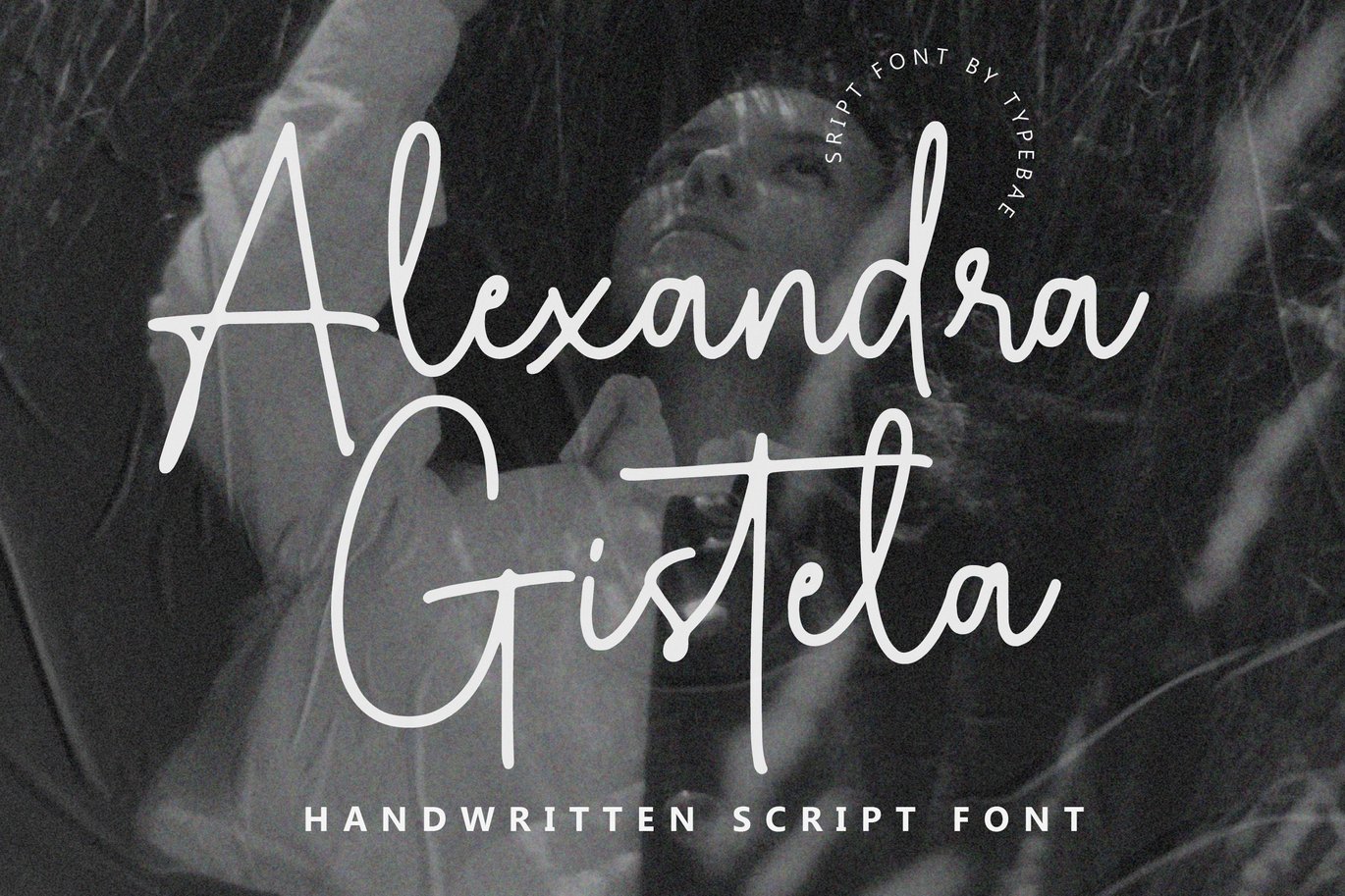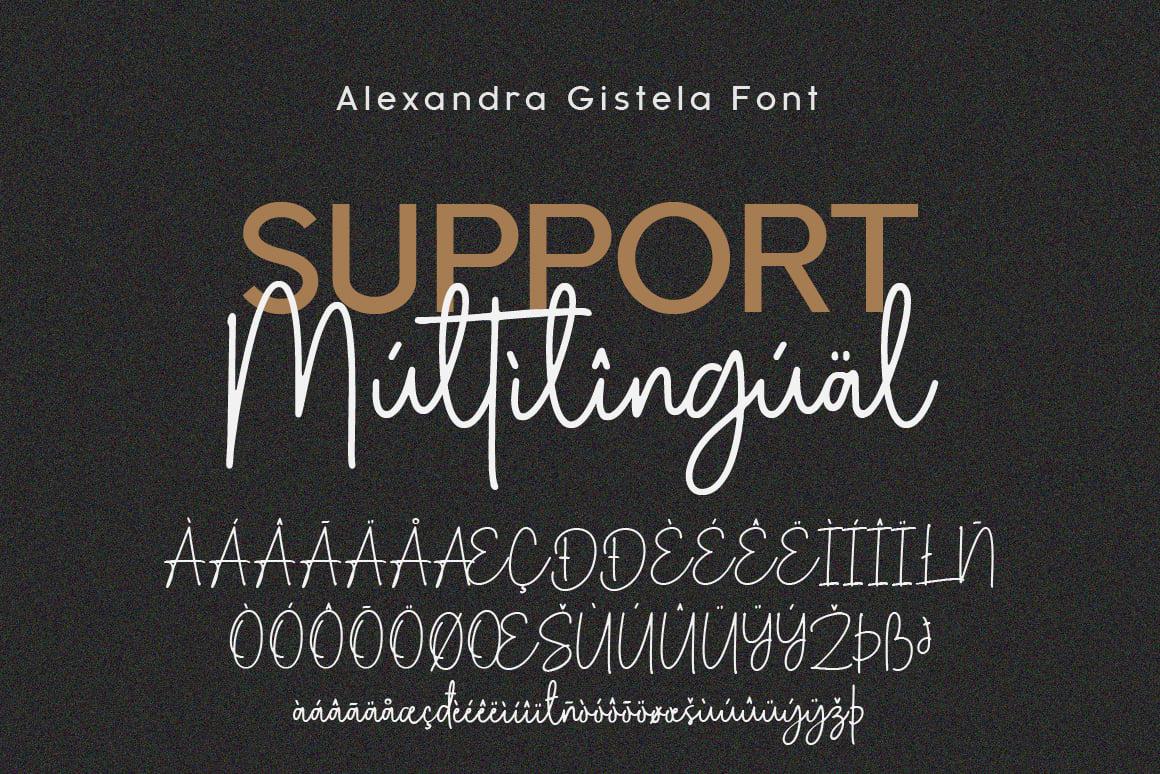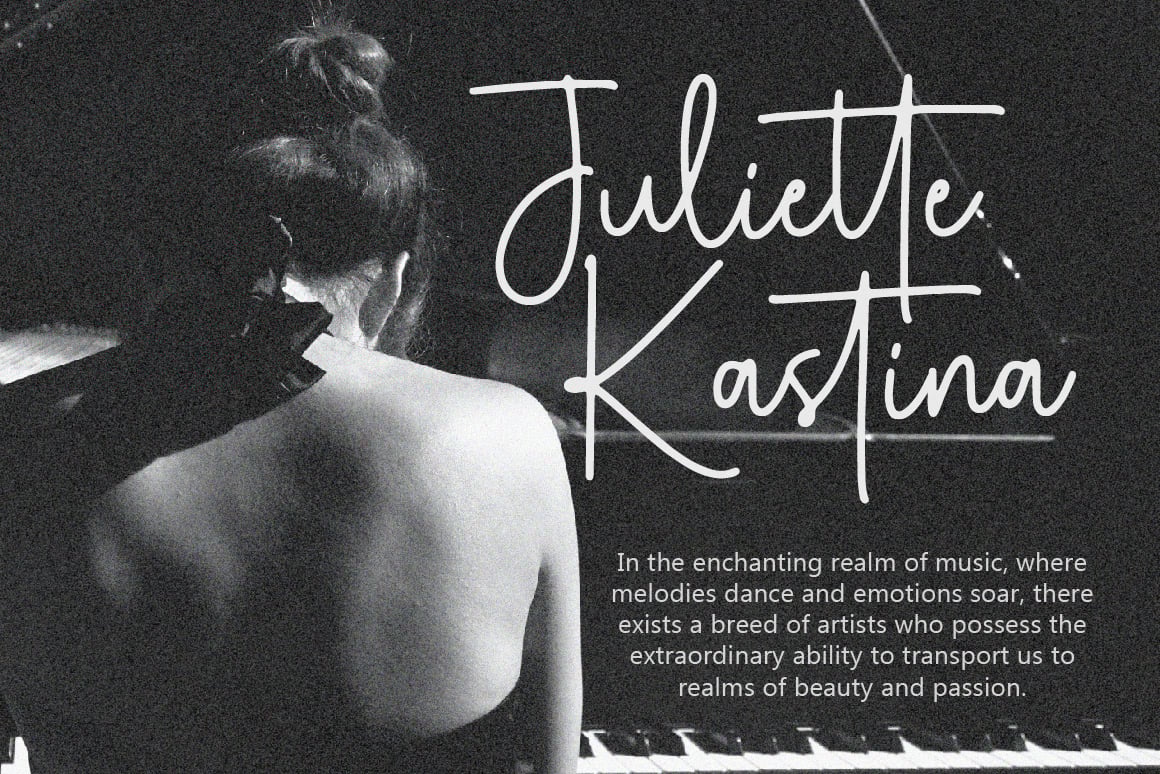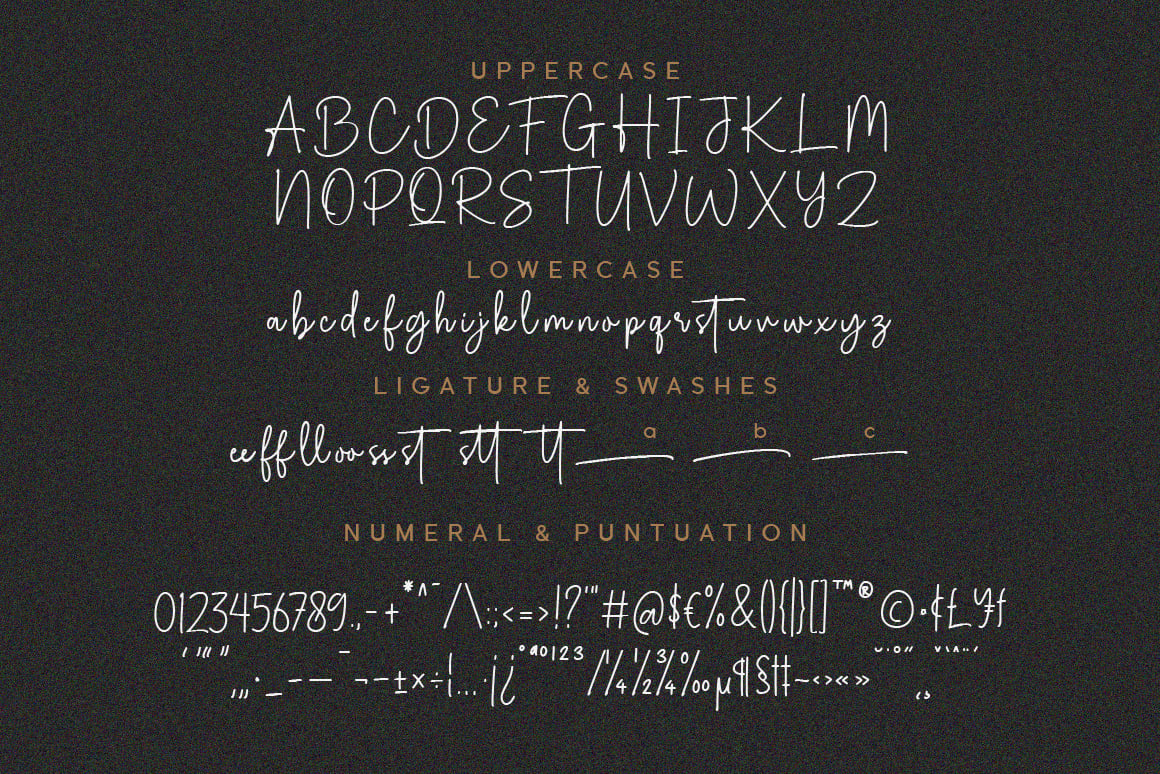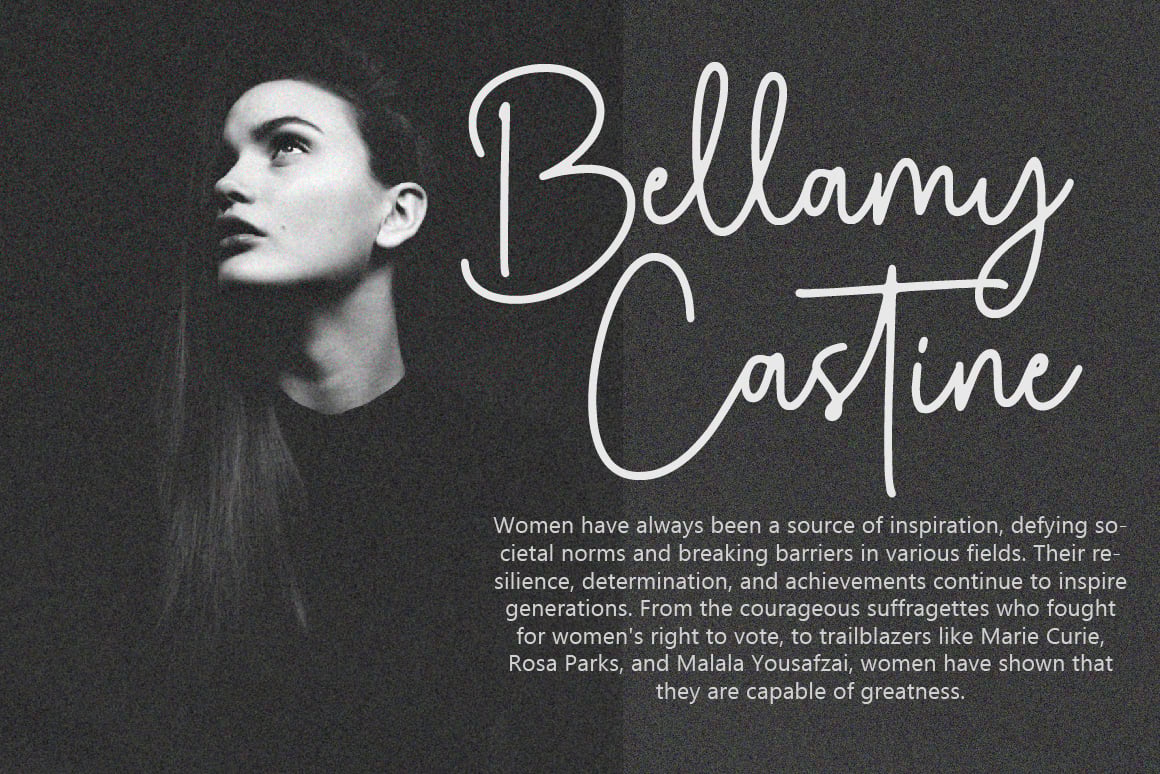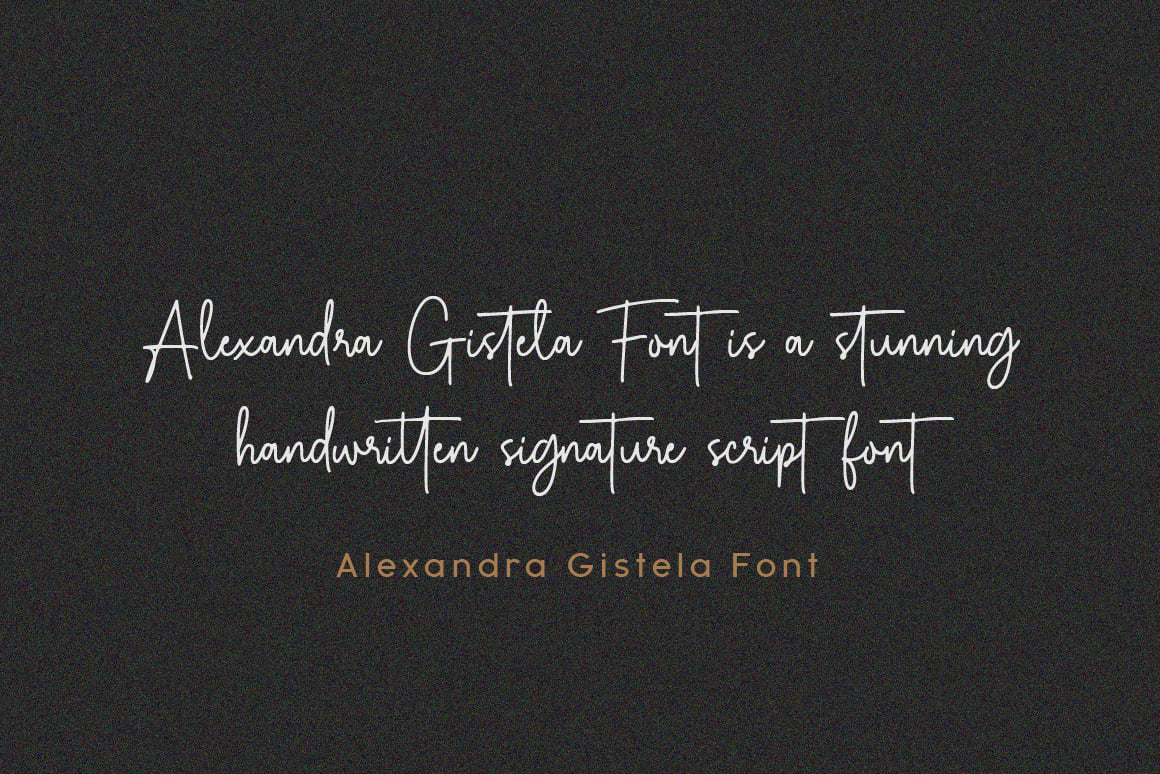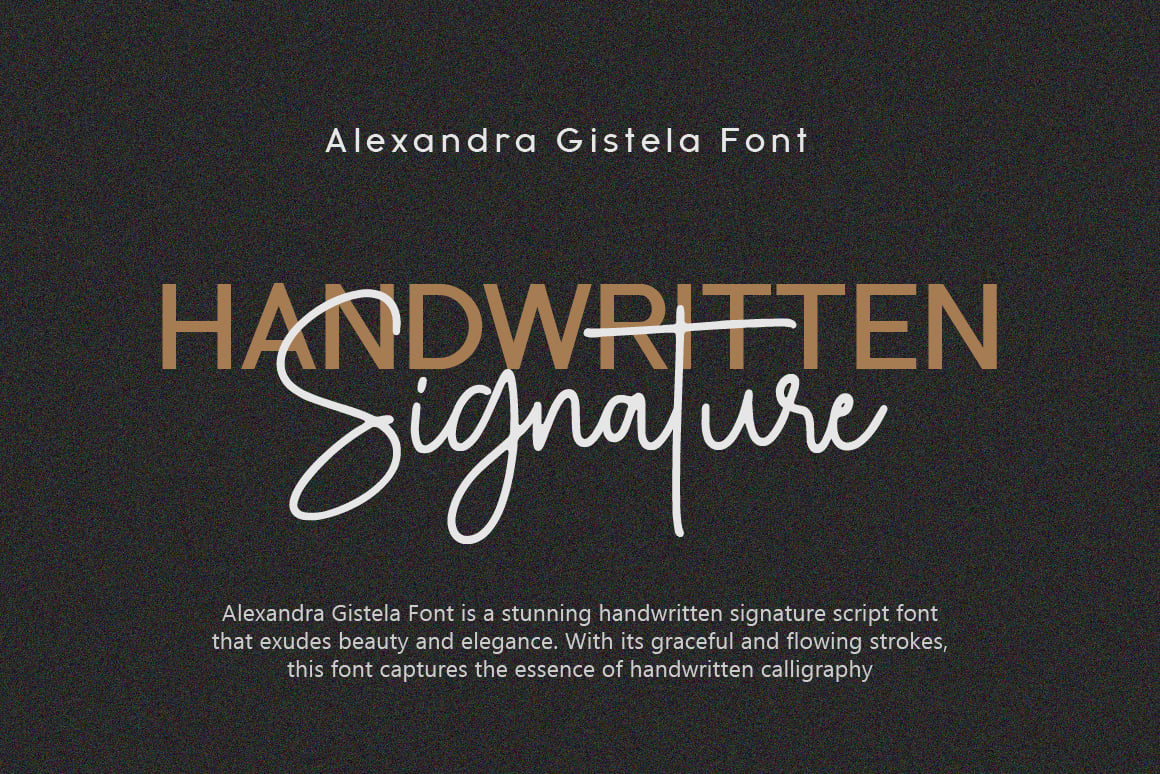
Alexandra Gistela – Handwritten Script Font
Alexandra Gistela is a stunning handwritten signature script font that exudes beauty and elegance. Alexandra Gistela is perfect for creating luxurious branding materials, wedding invitations, greeting cards, and other projects that demand a touch of refined beauty.
*Ligature feature
*Multilingual Support: Afrikaans, Basque, Breton, Catalan, Danish, Dutch, English, Finnish, French, Gaelic (Irish, Scots), German, Icelandic, Indonesian, Irish, Italian, Norwegian, Portuguese, Saami (Southern), Spanish, Swahili, Swedish.